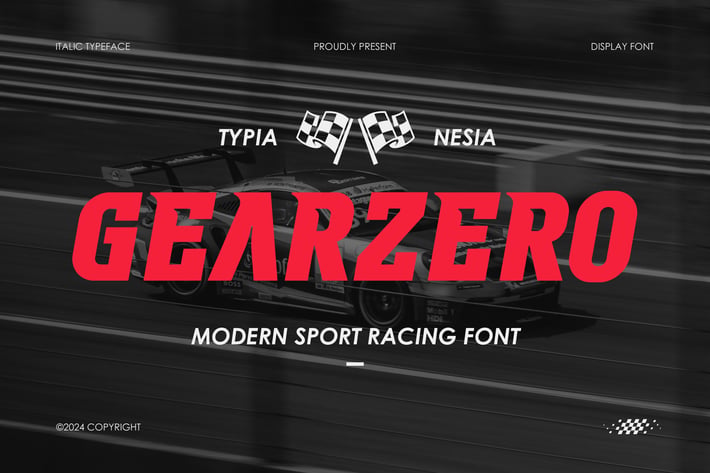
Gearzero - Modern Sport Racing Italic Font
Gearzero - Modern Sport Racing Italic Font - Bold Game Speed Energy Display Font
Gearzero is a Modern Sport Racing Font designed to embody speed, power, and dynamism. Its bold and angular letterforms make it a perfect fit for projects that require a high-energy, competitive look, making it ideal for logo designs, branding for sports, tech branding, racing events, automotive industries, game design, promotional materials for fitness brands, motorsports, athletic branding, or high-performance products. Gearzero is also well-suited for apparel designs, packaging, and digital marketing campaigns that need to convey strength and motion. Comes with uppercase and lowercase letters, punctuation, numerals, and multilingual support, providing flexibility and versatility in all your design needs. With its fast-paced and impactful design, Gearzero is crafted to help your designs stand out, delivering a dynamic and modern appeal.